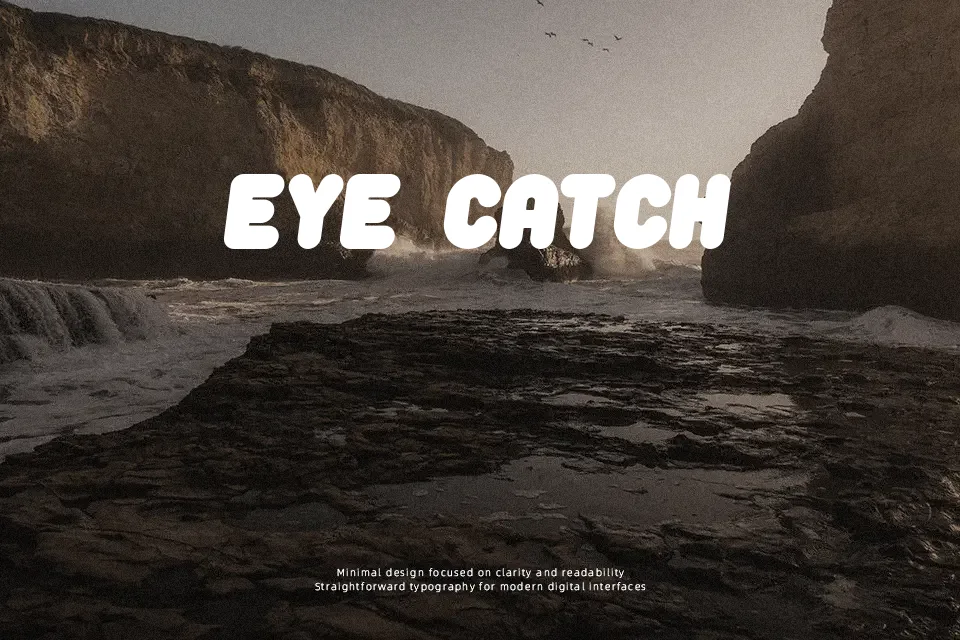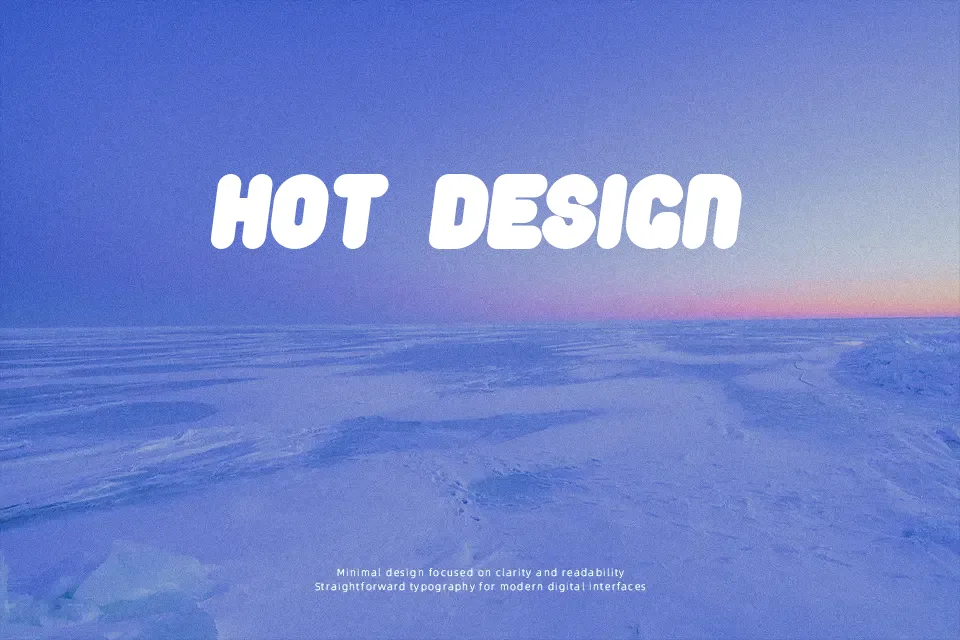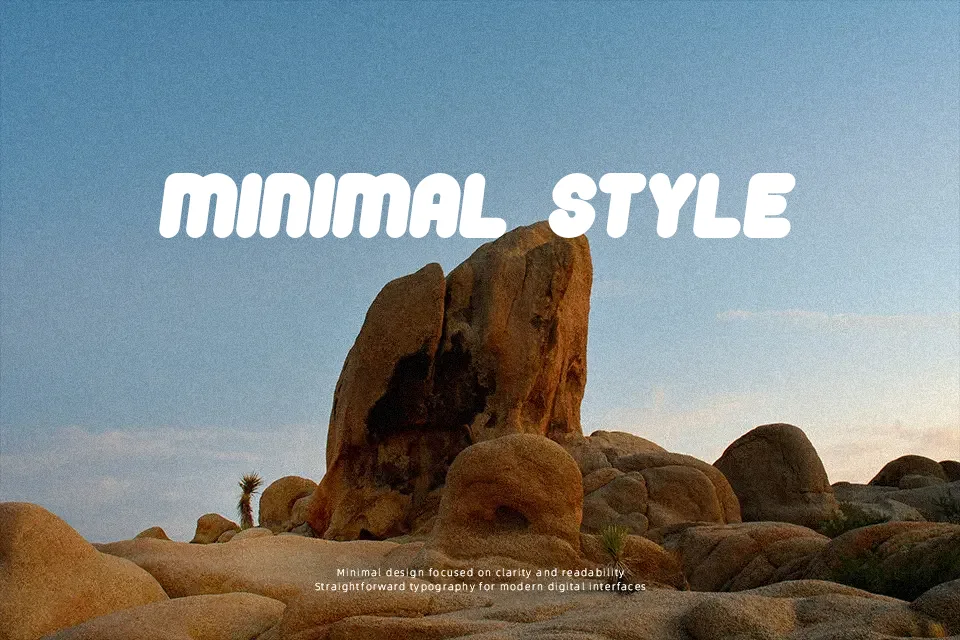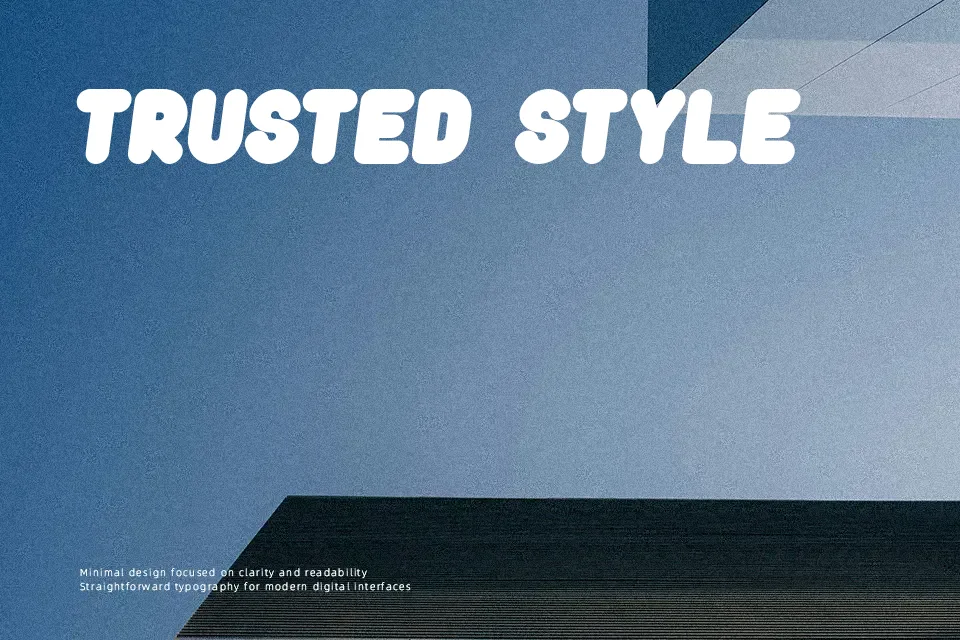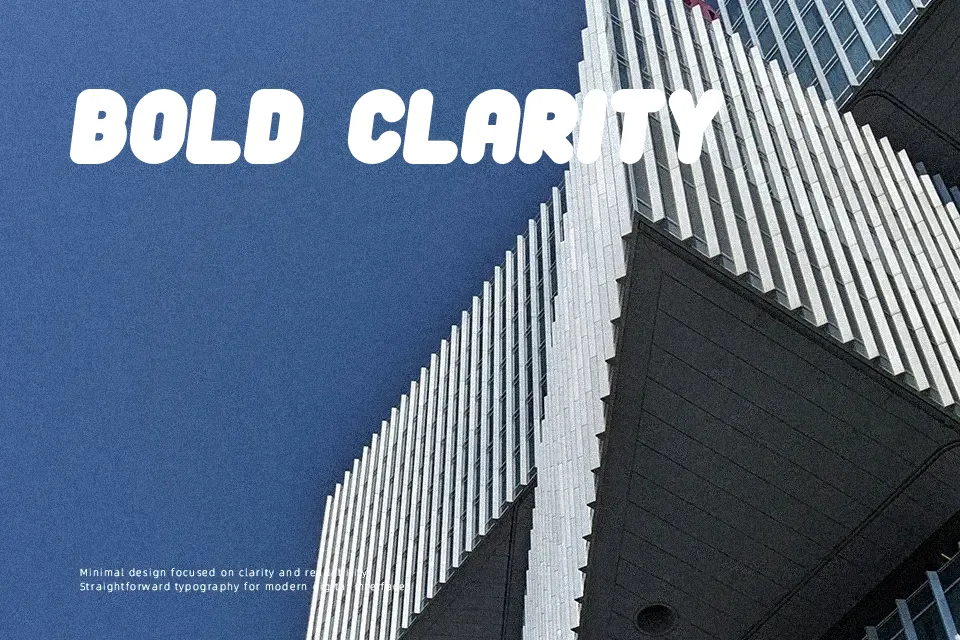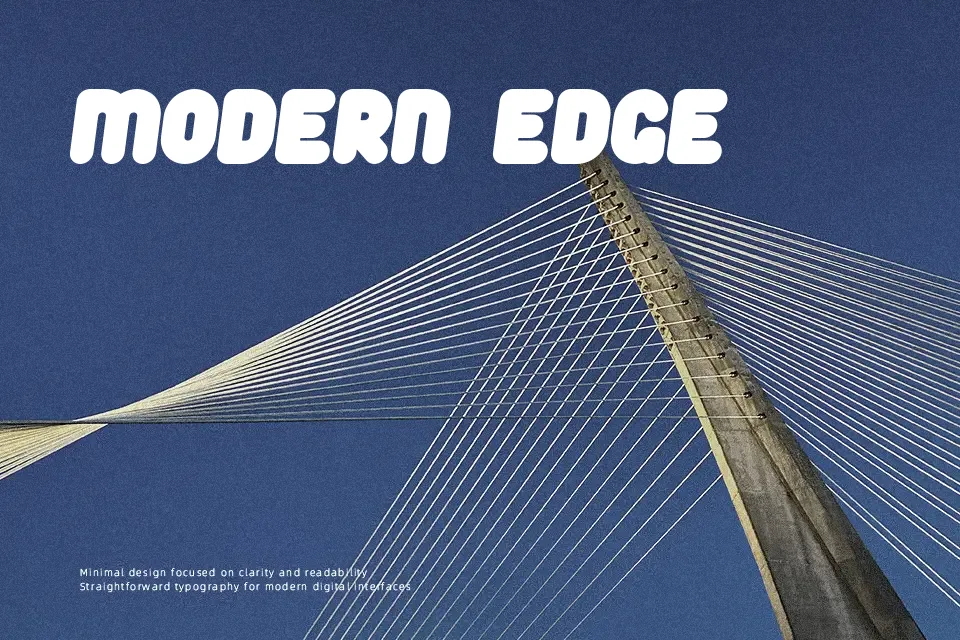
Time For Salad Font
Time For Salad Font is constructed with ultra-heavy, inflated strokes and generous rounded terminals that lean into an energetic italic angle. The letterforms exhibit wide proportions and minimal stroke contrast, leaving extremely compact counters within characters like e and o. Tight spacing creates a continuous rhythmic band across headlines, ensuring substantial visual impact at large scales. However, this dense geometry quickly loses clarity when reduced to caption sizes, making the typeface impractical for sustained body text or technical layouts. For headline applications like festival banners and diner menus, the design commands attention effectively while requiring ample breathing room.
Best For: vintage food packaging,music festival posters,retro apparel graphics,diner menu headers
Not Ideal For: long paragraph text,mobile UI body copy,technical manuals,dense editorial layouts
Perfect for headline, logo, and packaging, with a bold and display style.